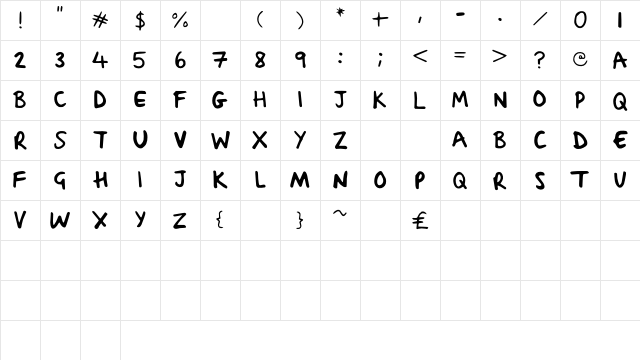
Sacha_Sharpie_2 Medium
Design Context for Sacha_Sharpie_2
Sacha_Sharpie_2 is a composed and adaptable typeface that performs quietly and consistently across a wide range of design contexts.